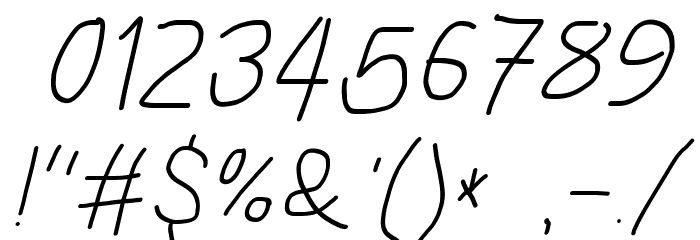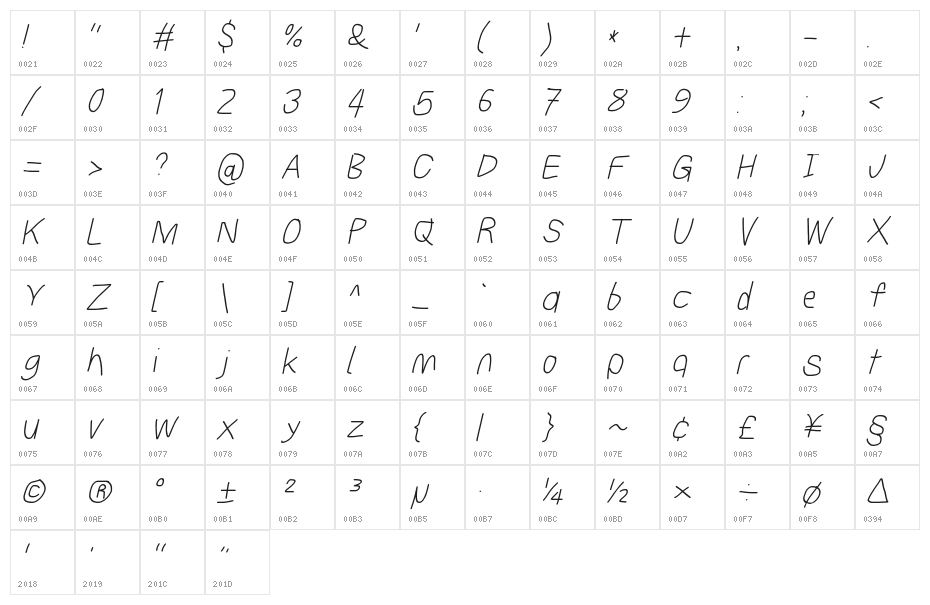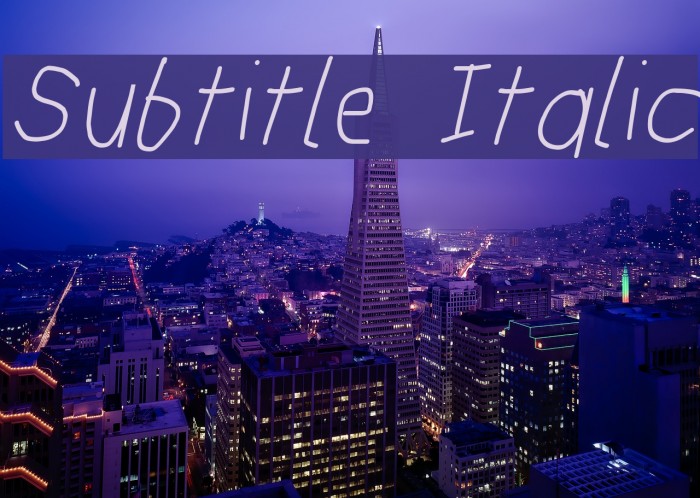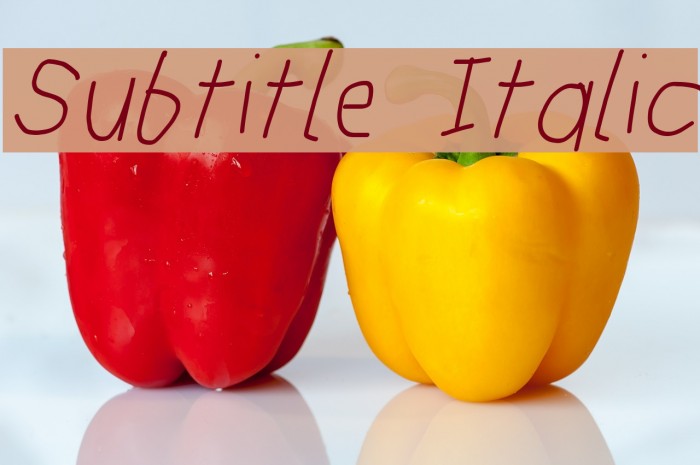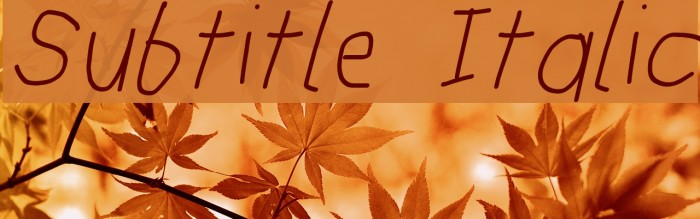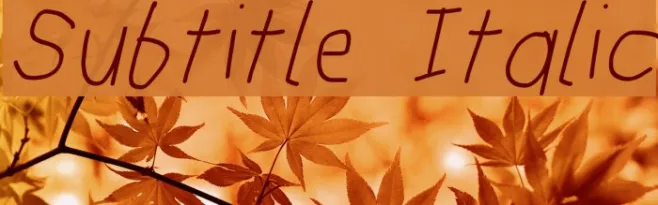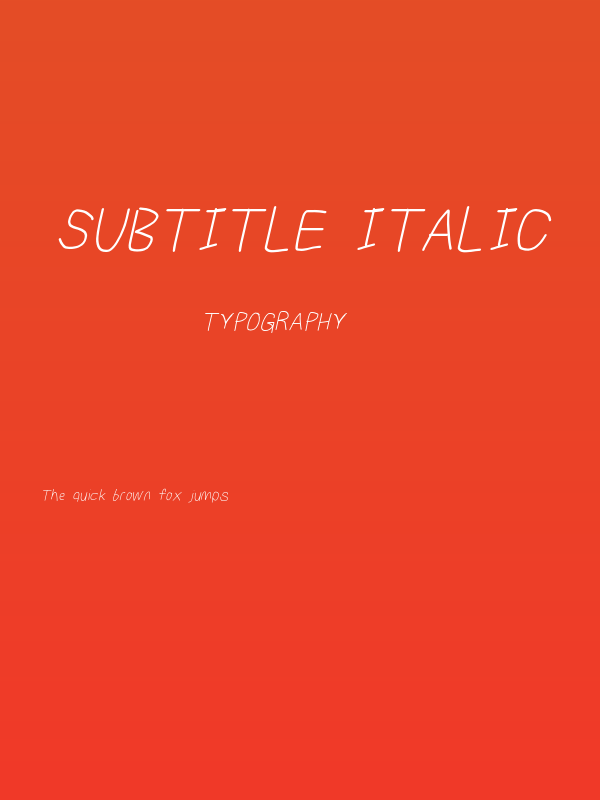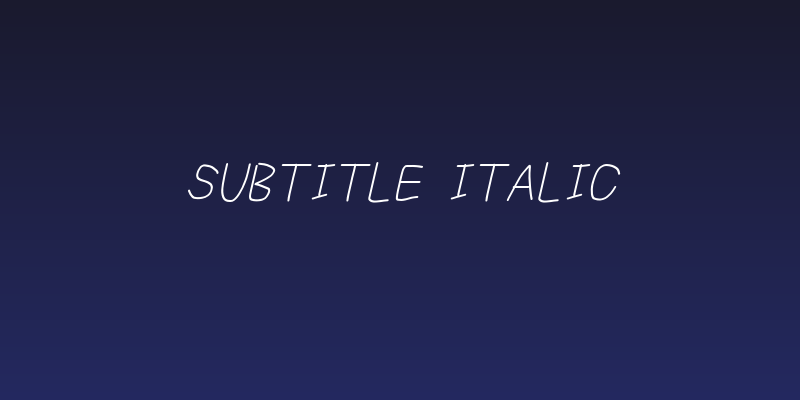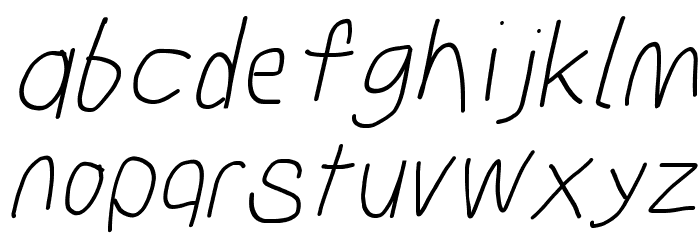
Subtitle Italic Font
Subtitle Italic Description
This font features a handwritten, italic style that exudes a casual and approachable feel. The letters are slightly slanted, giving it a dynamic and fluid appearance. Each character is crafted with a consistent stroke width, maintaining a uniform look throughout. The uppercase and lowercase letters are distinct, with a playful yet readable design. Numbers and special characters are included, matching the overall aesthetic. This font is versatile, suitable for projects that require a personal touch or a relaxed vibe.